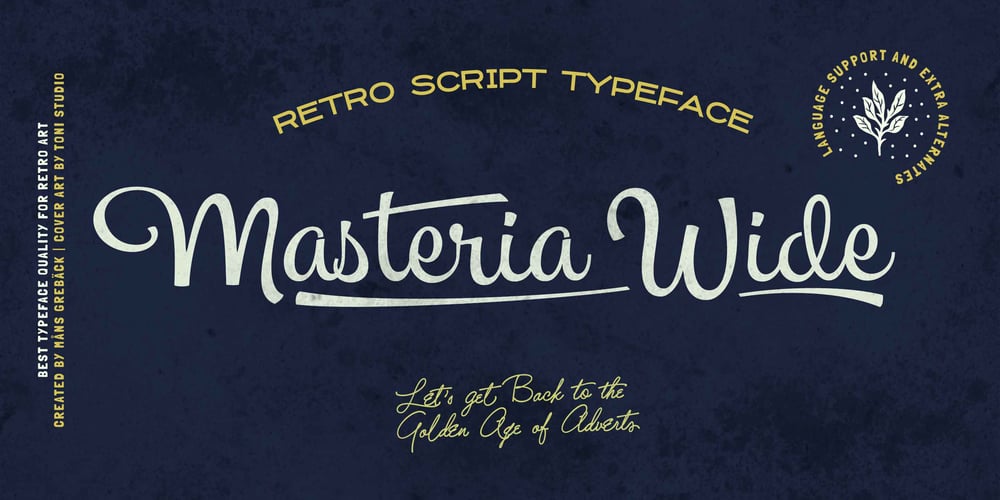
Masteria Wide Font Family was designed by Måns Grebäck and published by Mans Greback. Masteria Wide contains 8 styles and family package options. Masteria Wide is a retro script typeface. An optimistic calligraphy lettering to bring you back to the golden age of hand-drawn advertisements, Masteria Wide is a professional quality handwriting font family.Drawn and created by Mans Greback in 2022, it is perfect for a vintage restaurant headline or nostalgic logotype design. Use underscore _ to make a swash. Example: Mast_eriaUse multiple underscores to make a longer swash.Example: Super___human(Download required.)Masteria Wide is provided in eight diverse styles, such as Thin, Bold, Black, Italic and combinations to compliment each other and maximise your options and design experience. The font is built with advanced OpenType functionality and has a guaranteed top-notch quality, containing stylistic and contextual alternates, ligatures and more features; all to give you full control and customizability. It has extensive lingual support, covering all Latin-based languages, from Northern Europe to South Africa, from America to South-East Asia. It contains all characters and symbols you’ll ever need, including all punctuation and numbers.